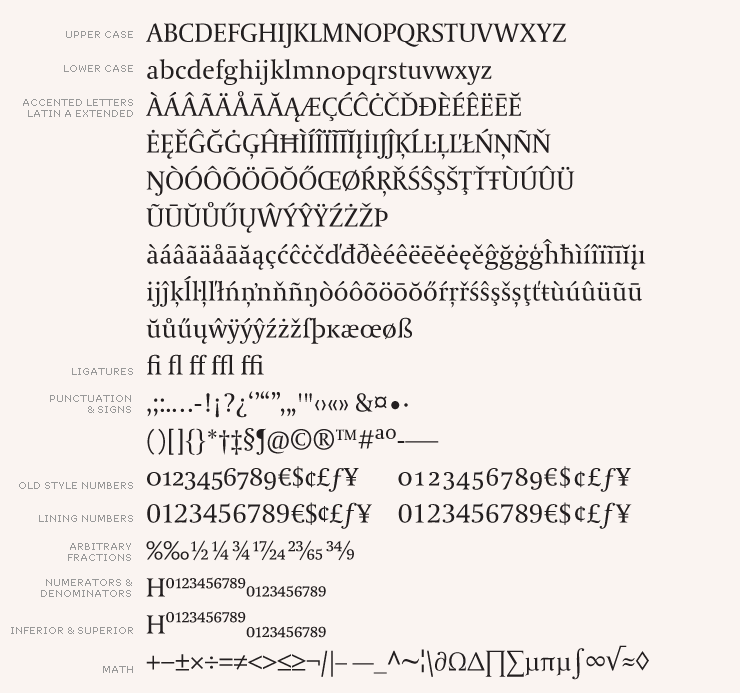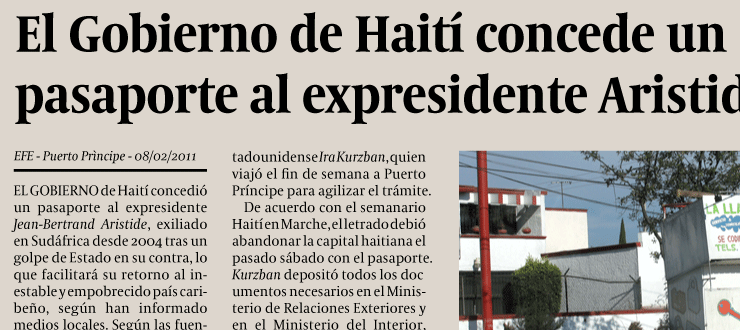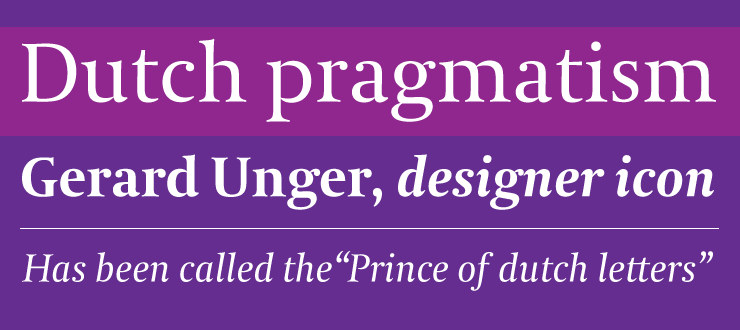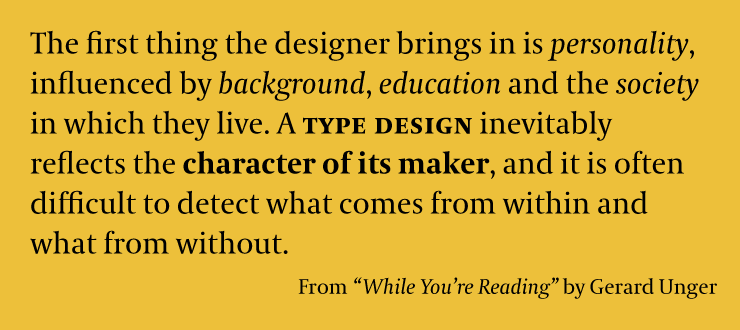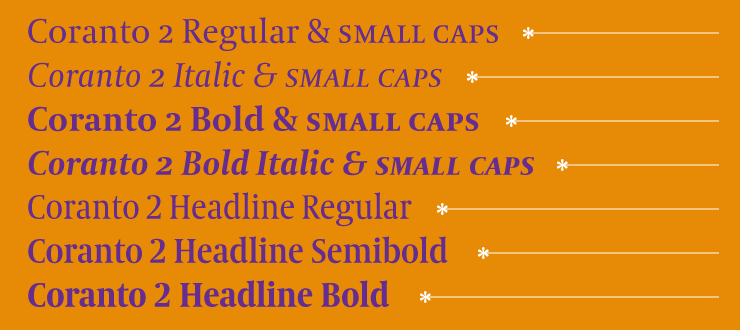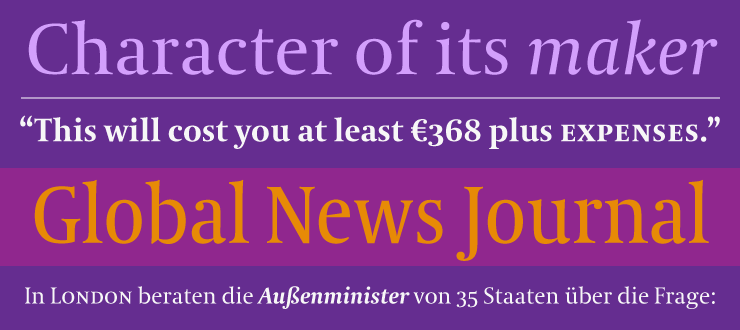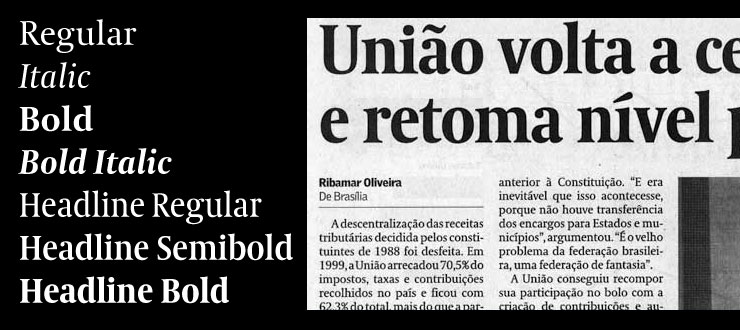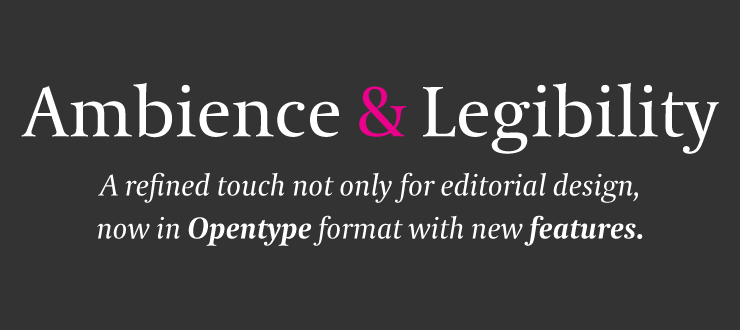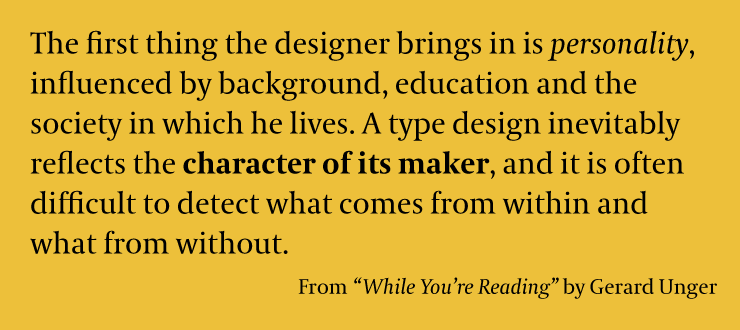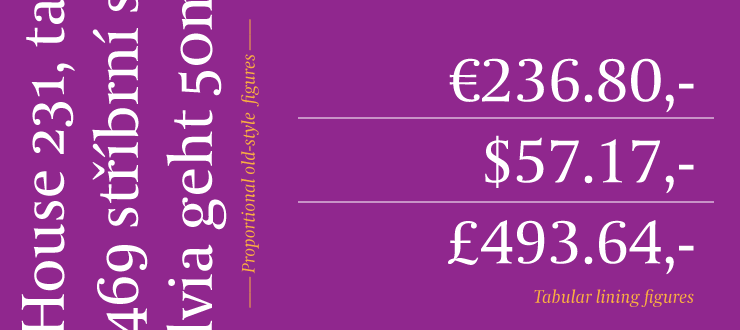
Coranto 2
Designed by Gerard Unger. Released 2011.
Newspaper text no longer needs to sacrifice its compelling and unique look in order to gain functional superiority; instead a top priority has become enjoying the reading experience. Coranto 2 arose from a desire to transfer elegance and refinement to newsprint. Just as is expected, Coranto 2 is intended for running text while
Coranto 2 Headline, with its comparatively taller x-height and condensed width, is intended to set headlines. Coranto 2 is a refined serif newsface with distinctive character and clarity, able to create an ambience and give editorials a clearer identity of their own.
The Backstory
Coranto 2
A refined serif newsface with distinctive character and clarity.
The Coranto 2 font family, based on Dr Gerard Unger’s 1997 typeface Paradox, arose from a desire to transfer the elegance and refinement of that type family to newsprint. Coranto 2 has a larger x-height and has been made more robust in many places to apply to the demands of newspaper printing. The Headline version has an even taller x-height for increased legibility and is more condensed to save space in the demanding medium.
Newspaper production has seen spectacular improvements over the past 50 years in paper and print quality, the introduction of colour printing, and more consistent and accurate register. Newspaper production still demands numerous letterforms, but advancements in printing are better able to bring out details and make typography more appealing to readers. Newspaper text no longer needs to sacrifice its compelling and unique look in order to gain functional superiority, but instead a top priority has become enjoying the reading experience.
Today, newspapers are not merely a matter of cheap grey paper, thin ink, and super-fast rotary printing; and type design no longer has to focus on surviving the mechanical technology while providing only elementary legibility. Now there is also room to create an ambience, to give an editorial a clearer identity of its own. There is scope — demand even — for precision and refinement. One consequence of this is that newspaper designers can now look beyond the traditional group of newsfaces. Conversely, a well made newsface can be used outside the newspaper — not an uncommon occurrence.
The OpenType update to the refined Coranto 2 type family includes the addition of over 250 glyphs featuring full Latin A language support, small caps, new ligatures, four sets of numerals, arbitrary fractions, and superiors and inferiors. Furthermore, kerning was added and fine-tuned for better performance. Just as is expected, Coranto 2 is intended for running text and Coranto 2 Headline, with its comparatively taller x-height and condensed width, is intended to set headlines.